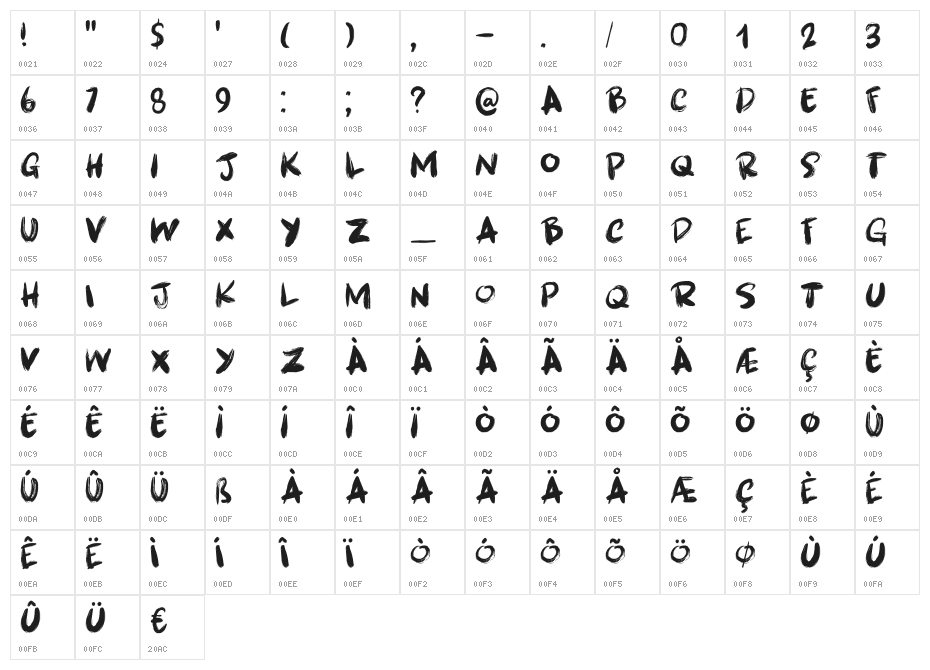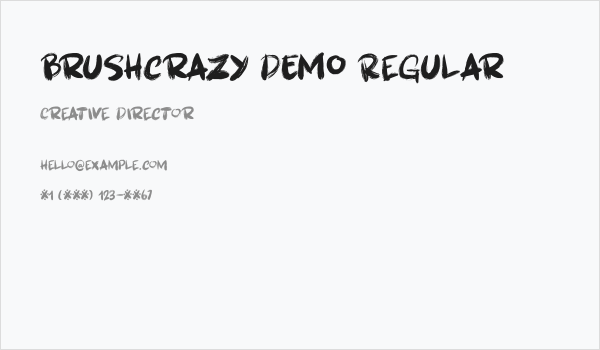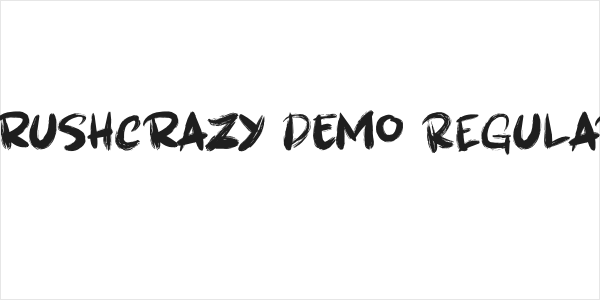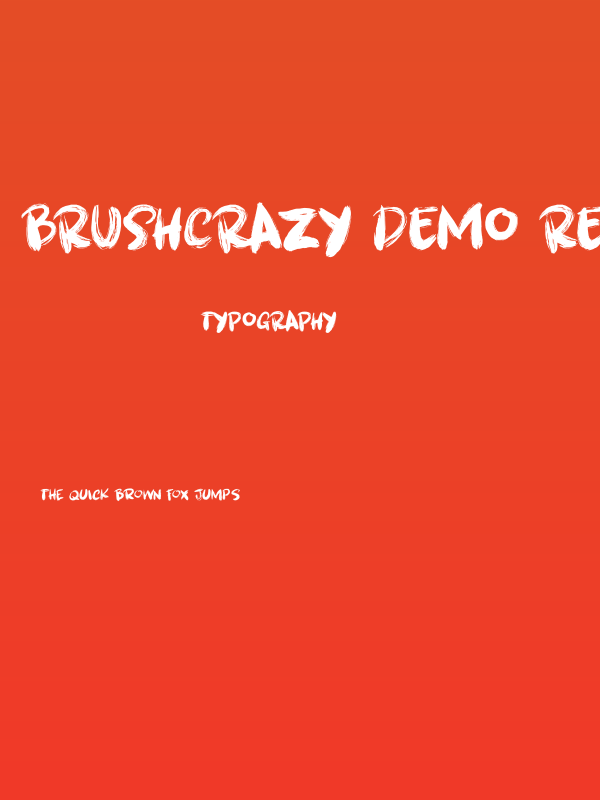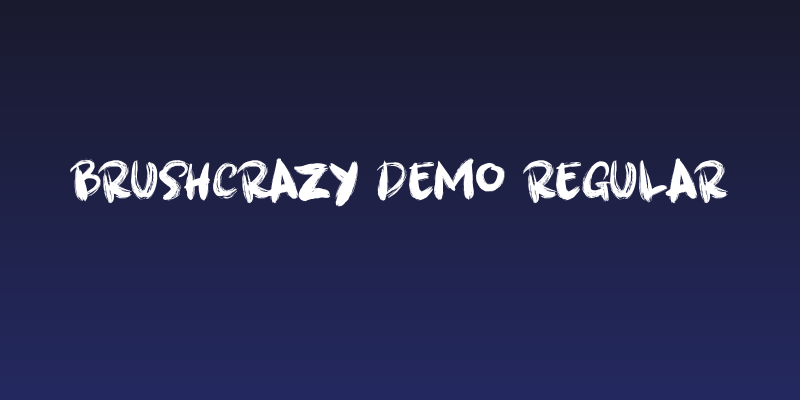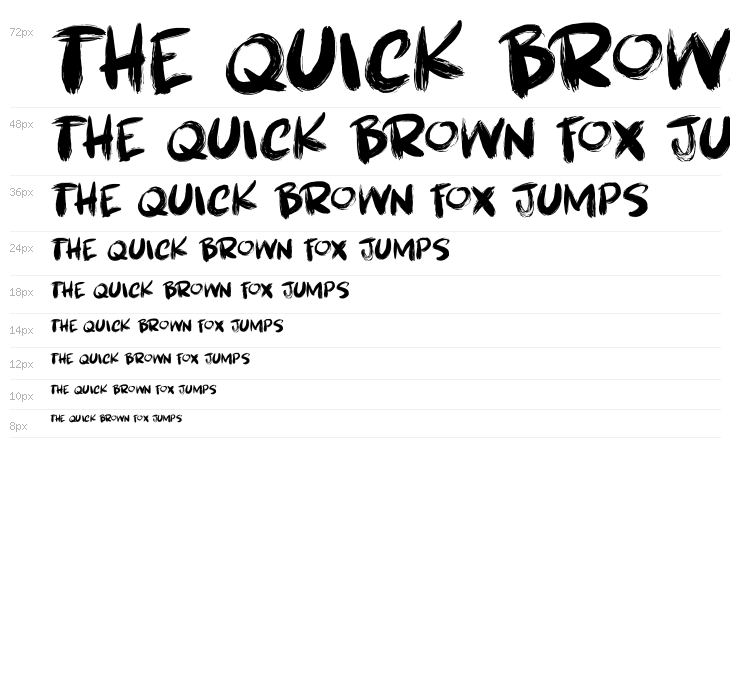
Brushcrazy DEMO Regular Font
Brushcrazy DEMO Regular Description
This font features a bold, expressive brush style that mimics the strokes of a paintbrush. The characters are dynamic and energetic, with a hand-painted appearance that adds a personal touch to any design. The uppercase and lowercase letters are crafted with varying stroke widths, creating a sense of movement and fluidity. The numbers and special characters maintain the same artistic flair, making them suitable for creative projects. The overall design is both modern and artistic, perfect for making a statement.
| Overall Style | Modern, Artistic |
| Proposed Projects | Ideal for posters, artistic branding, album covers, and creative social media graphics. |